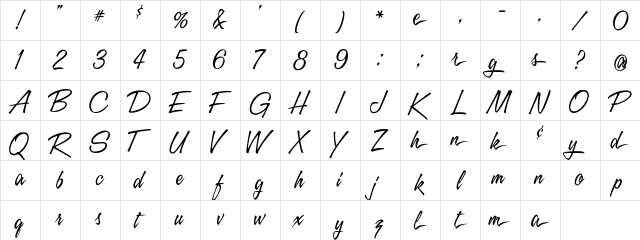
A&S Speedway Regular
| Foundry | SIGNFONTS-Art&Sign studio |
| Designer | Steve Contreras |
Design Context for A&S Speedway Typeface
A&S Speedway is a composed and adaptable typeface that performs quietly and consistently across a wide range of design contexts.